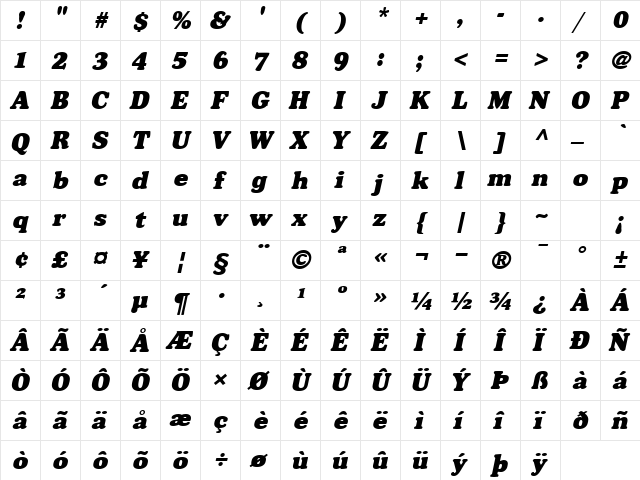
Broadside Italic
Design Context for Broadside Typeface
Broadside offers clean, dependable letterforms without strong stylistic allegiance, making it a practical choice for designers who need flexibility. The dynamic lean of this cut emphasises speed and emphasis in any layout.
Pro Tip: Try Broadside for annotation and caption copy alongside an upright companion — the contrast in angle creates a dynamic but ordered typographic system.